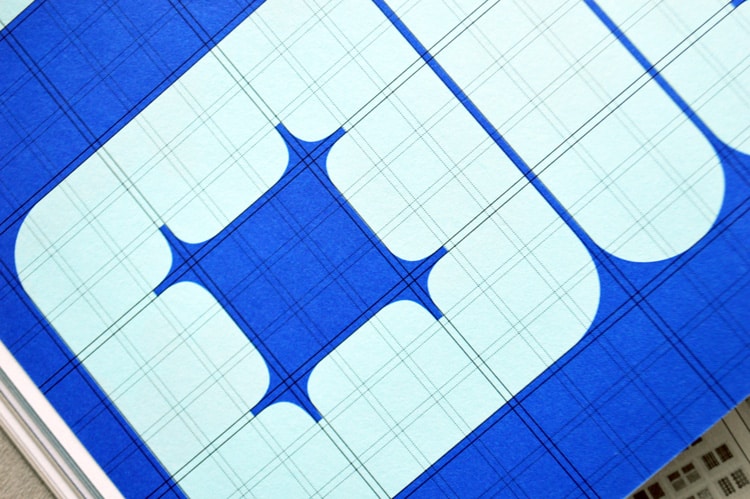
Architype Catalogue Soft Solid, 1970
Dutch designer Wim Crouwel gained a reputation for his radical, grid-based typography through his work for the Van Abbe and Stedelijk museums between 1954 and 1972. One of these typefaces was created for the 1970 exhibition catalogue of sculptor Claes Oldenburg at the Stedelijk. Crouwel designed the typeface with soft, “padded” letterforms, mirroring Oldenburg’s use of soft, pliable forms. This typeface was later published as the Architype Catalogue Soft Solid. → The Foundry Types | Architype Catalogue Soft Solid